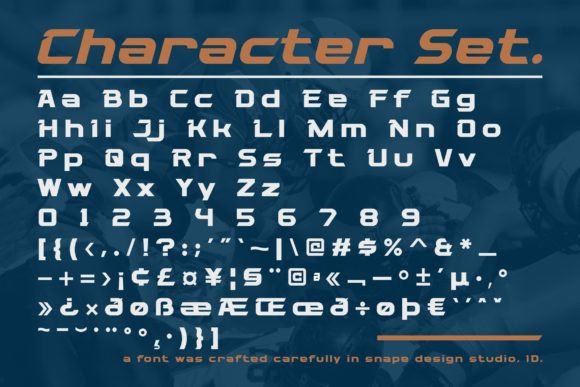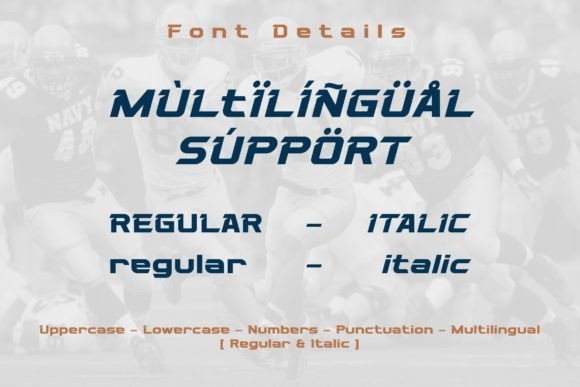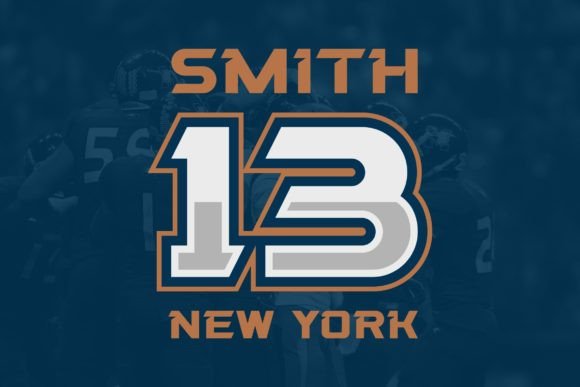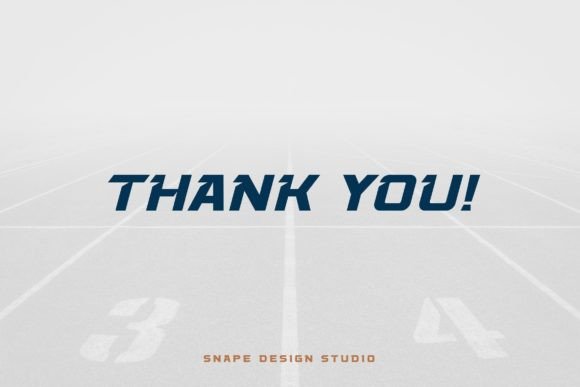
Introducing Enforce Font: The Ultimate Choice for Bold and Sporty Designs
In the world of design, typography plays a crucial role in conveying the message and tone of a project. When it comes to creating sport-inspired designs that demand attention, a bold and powerful font is essential. This is where Enforce Font comes into play, a robust and vibrant typeface designed to elevate your designs to the next level.
The Power of Enforce Font
Enforce Font is specifically crafted to add a bold and dynamic feel to your projects. Its strong and athletic appearance makes it an ideal choice for sports-related designs, such as team logos, jerseys, league titles, and more. The font’s sleek and modern design ensures that your projects stand out from the crowd, grabbing the attention of your audience and leaving a lasting impression.
One of the key benefits of Enforce Font is its versatility. While it’s primarily designed for sports-inspired projects, its bold and eye-catching style makes it suitable for a wide range of applications, including:
- Sports design
- Team logos
- Jerseys
- League titles
- Movie and film titles
- Documentaries
- Logos
- Posters
- Games
- Book covers
- Headlines and titles
Whether you’re working on a professional project or a personal creative endeavor, Enforce Font is the perfect choice to add a touch of boldness and excitement.
Why Choose Enforce Font?
So, what sets Enforce Font apart from other fonts in the market? Here are a few reasons why designers and crafters love working with Enforce Font:
- Unique and bold style: Enforce Font boasts a distinctive and powerful style that’s sure to grab attention.
- High-quality design: The font is carefully crafted with attention to detail, ensuring a high-quality design that’s perfect for professional projects.
- Easy to read: Despite its bold style, Enforce Font is easy to read, making it perfect for headlines, titles, and other applications where legibility is crucial.
- Versatile: As mentioned earlier, Enforce Font is suitable for a wide range of projects, making it a great addition to any designer’s toolkit.
How to Use Enforce Font
- Use it for headlines and titles: Enforce Font is perfect for headlines and titles, where its bold style can make a lasting impression.
In conclusion, Enforce Font is a powerful and versatile typeface that’s perfect for designers and crafters looking to add a bold and sporty touch to their projects. Its unique style, high-quality design, and ease of use make it an excellent choice for a wide range of applications. Whether you’re working on a professional project or a personal creative endeavor, Enforce Font is sure to elevate your designs to the next level.